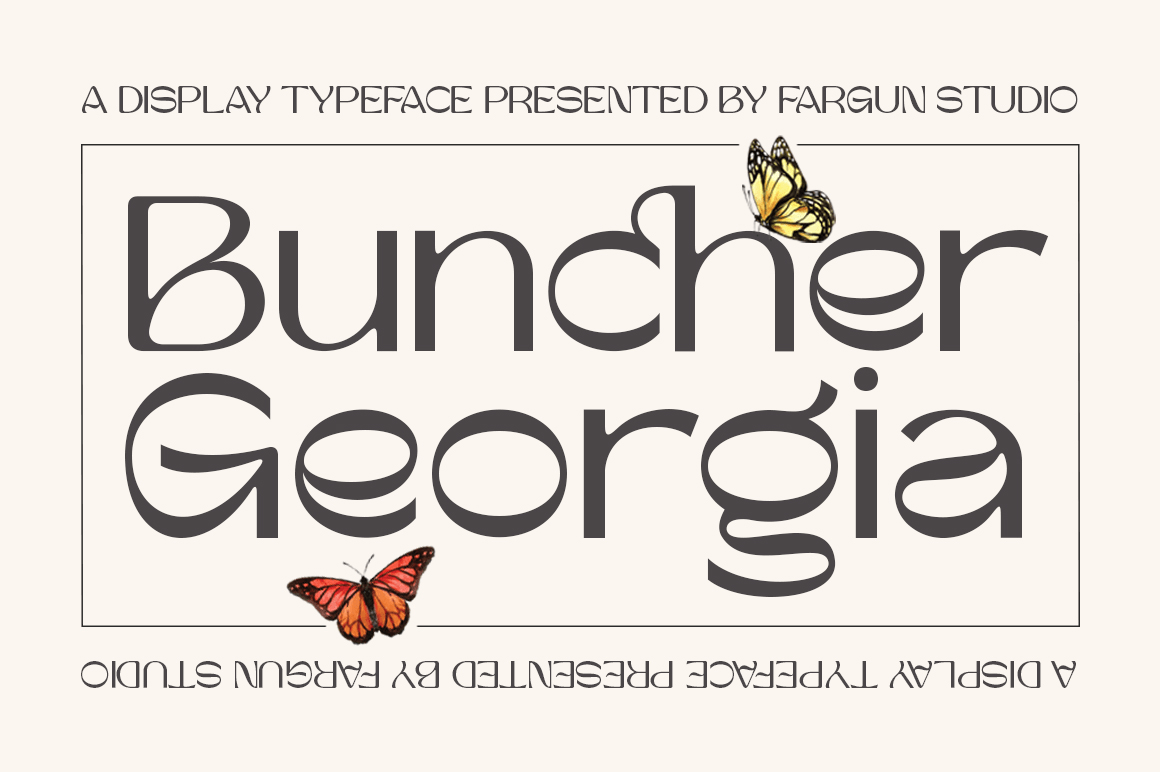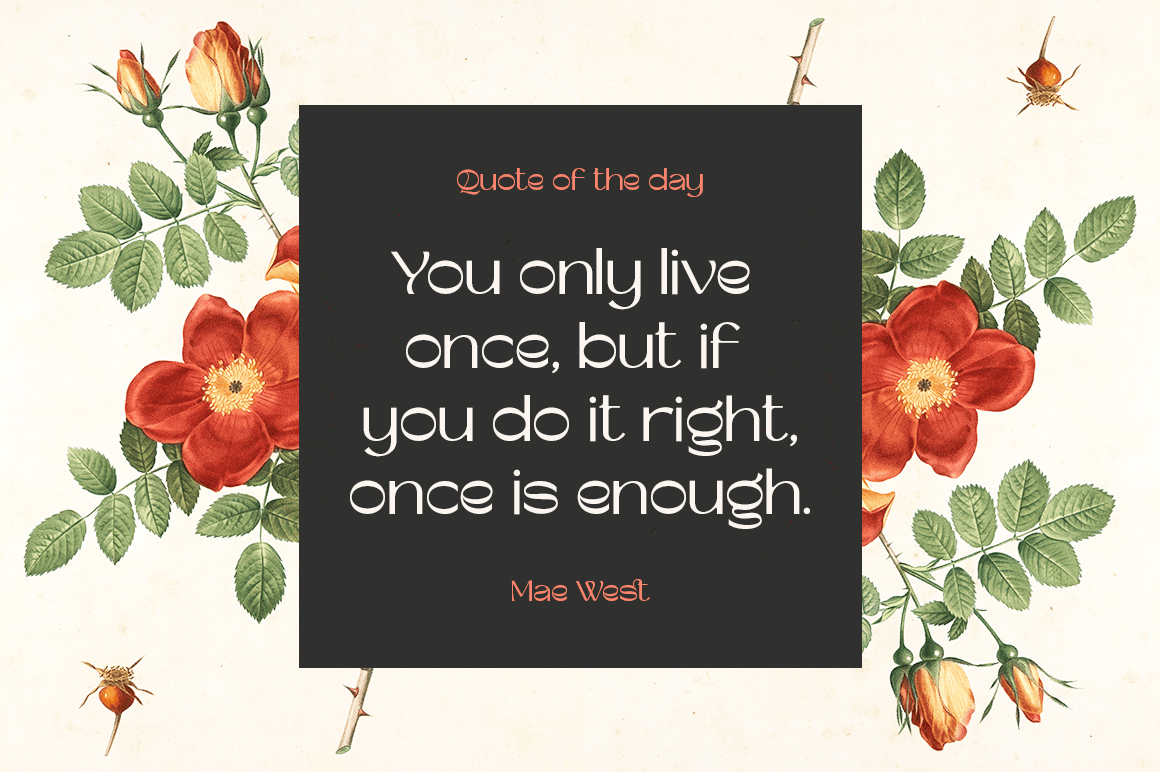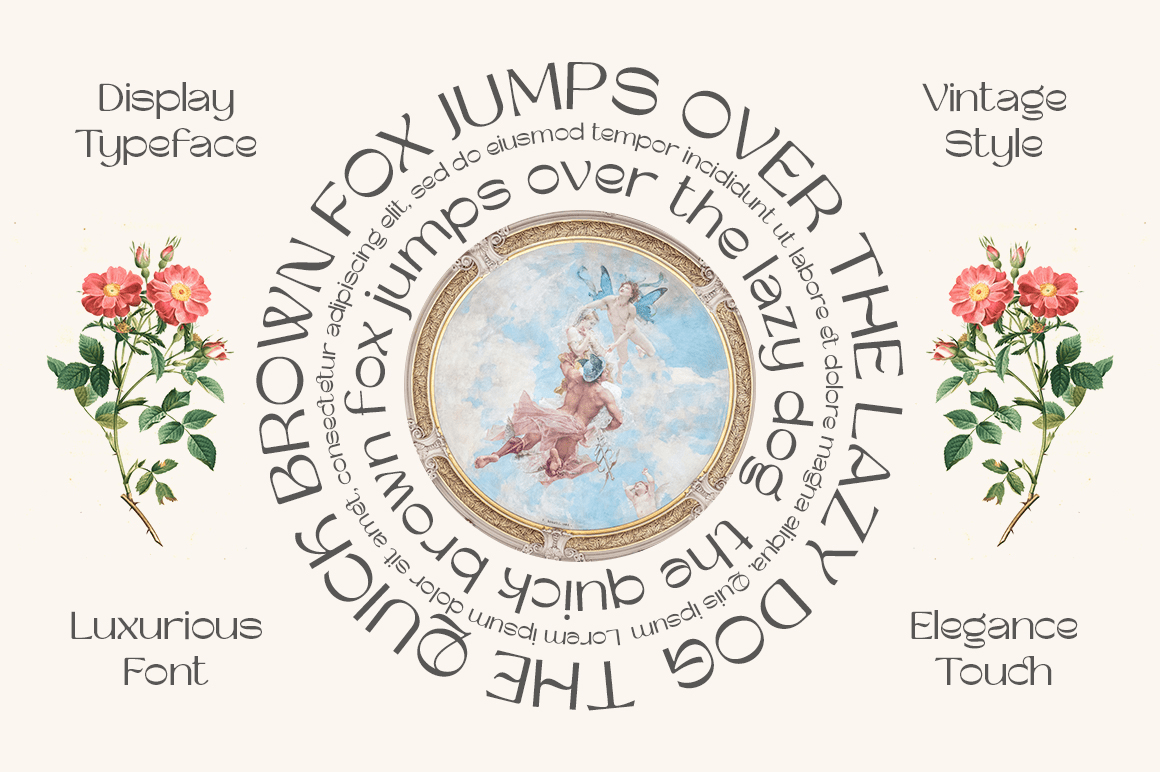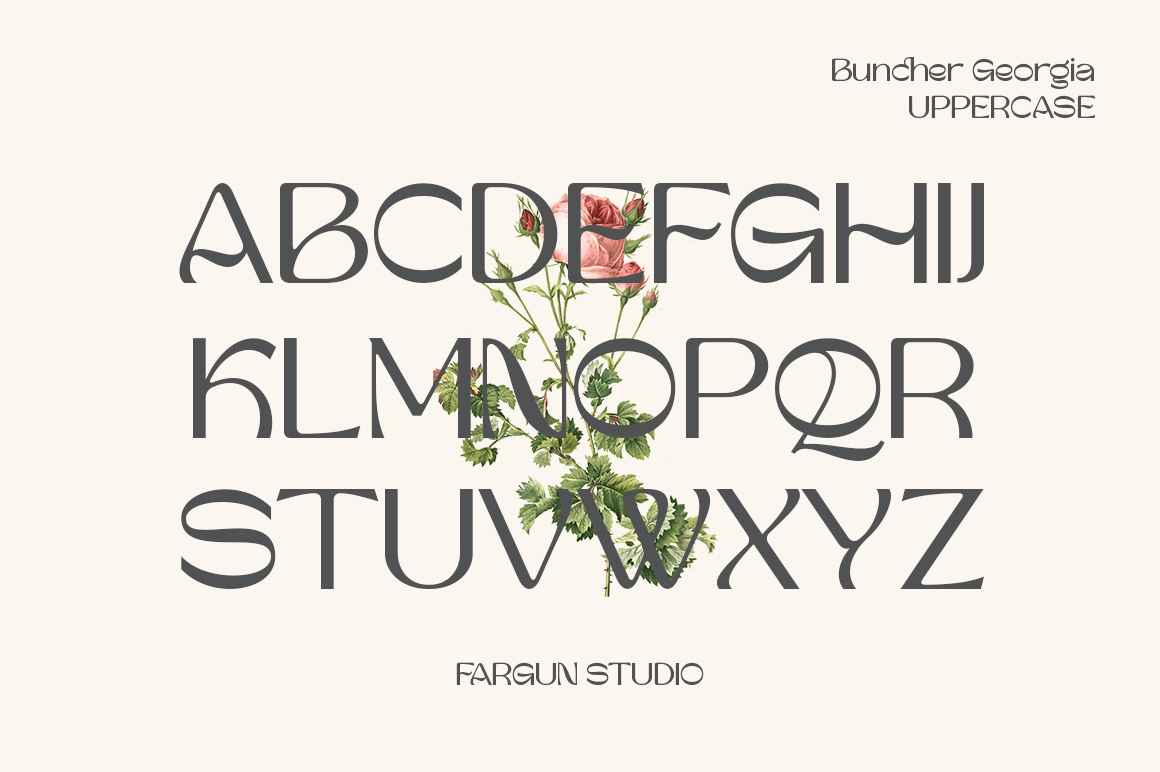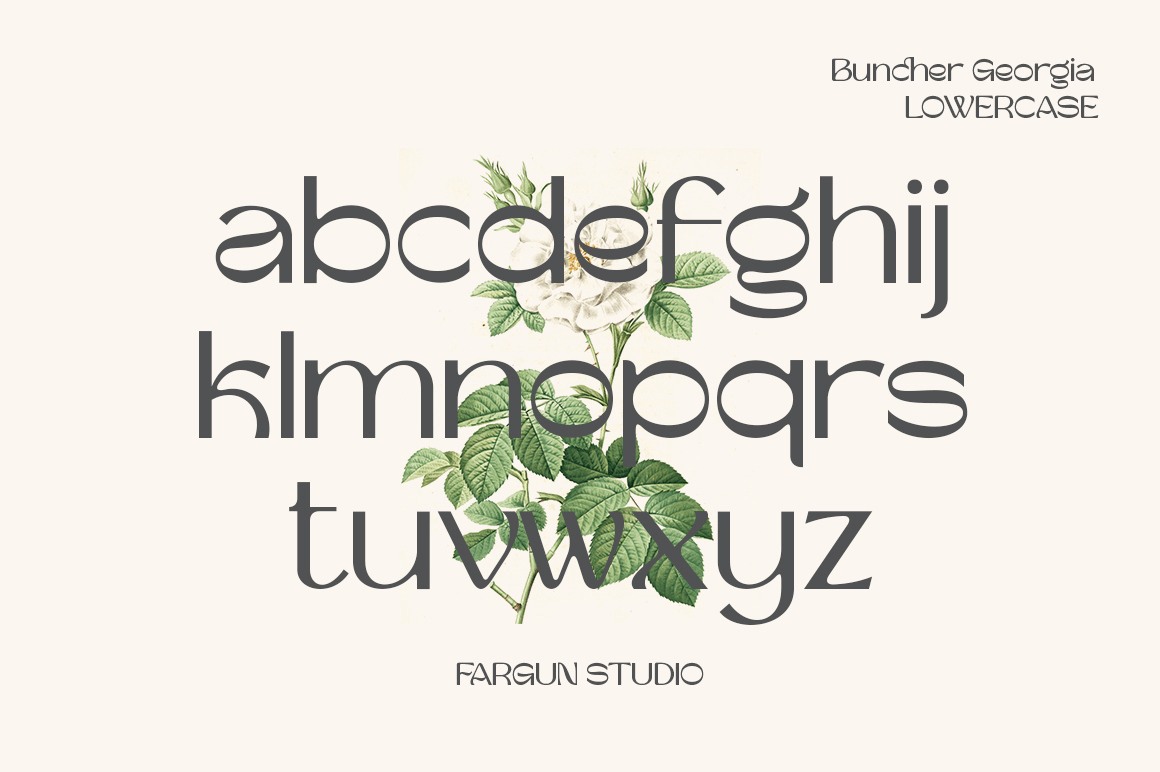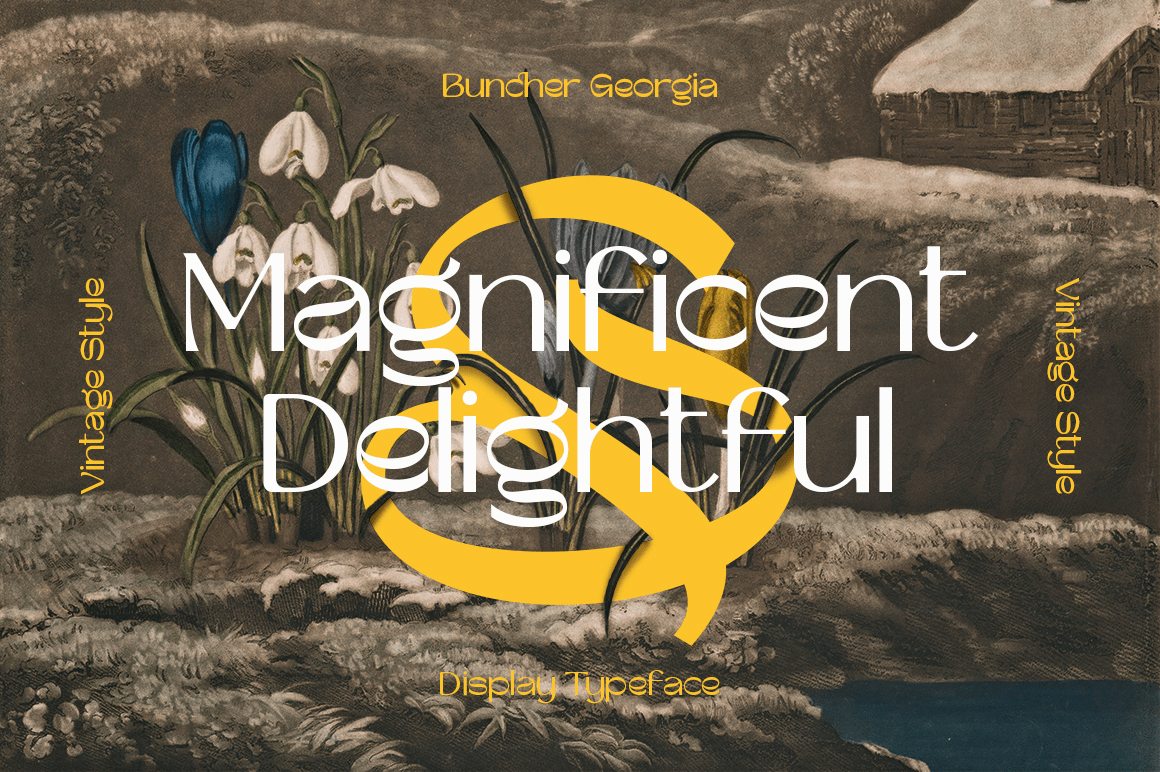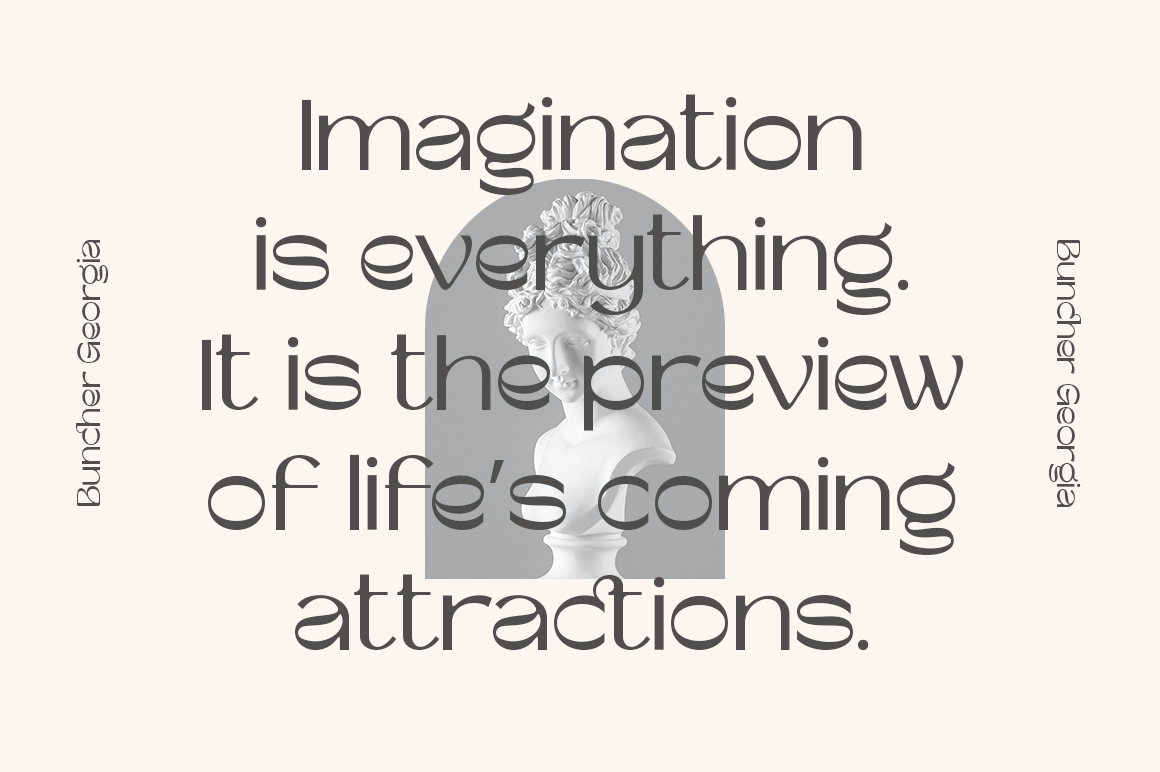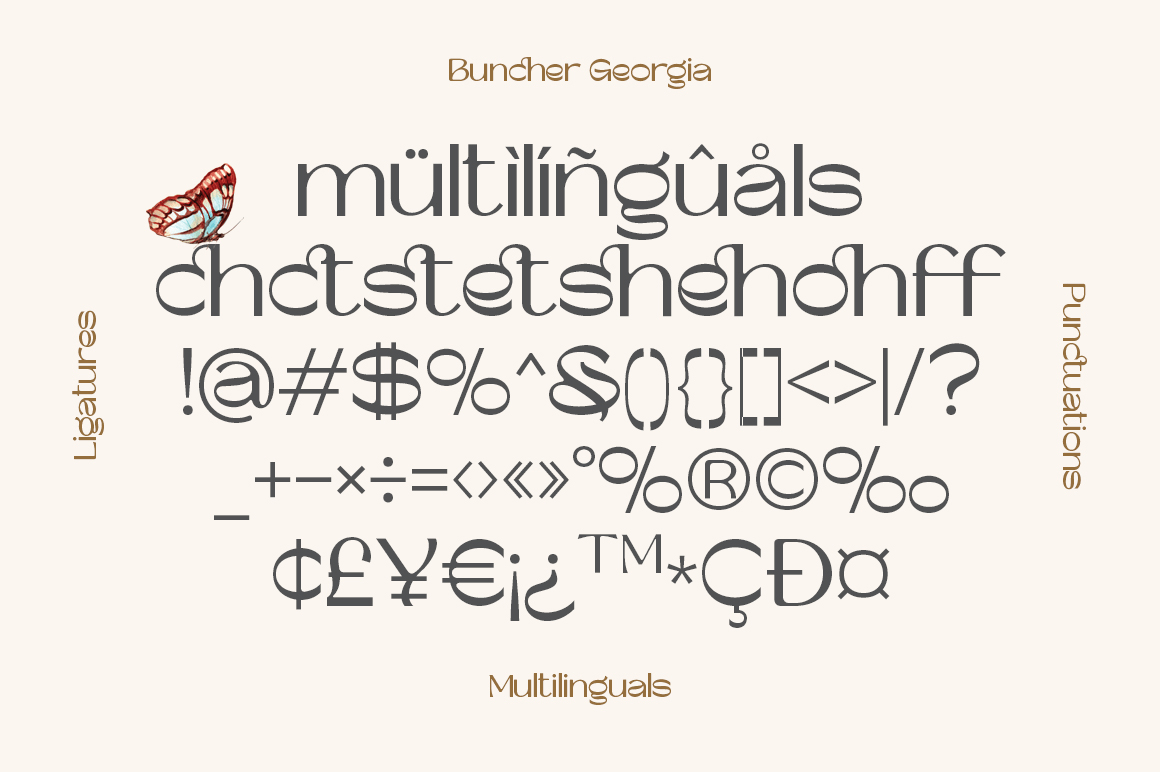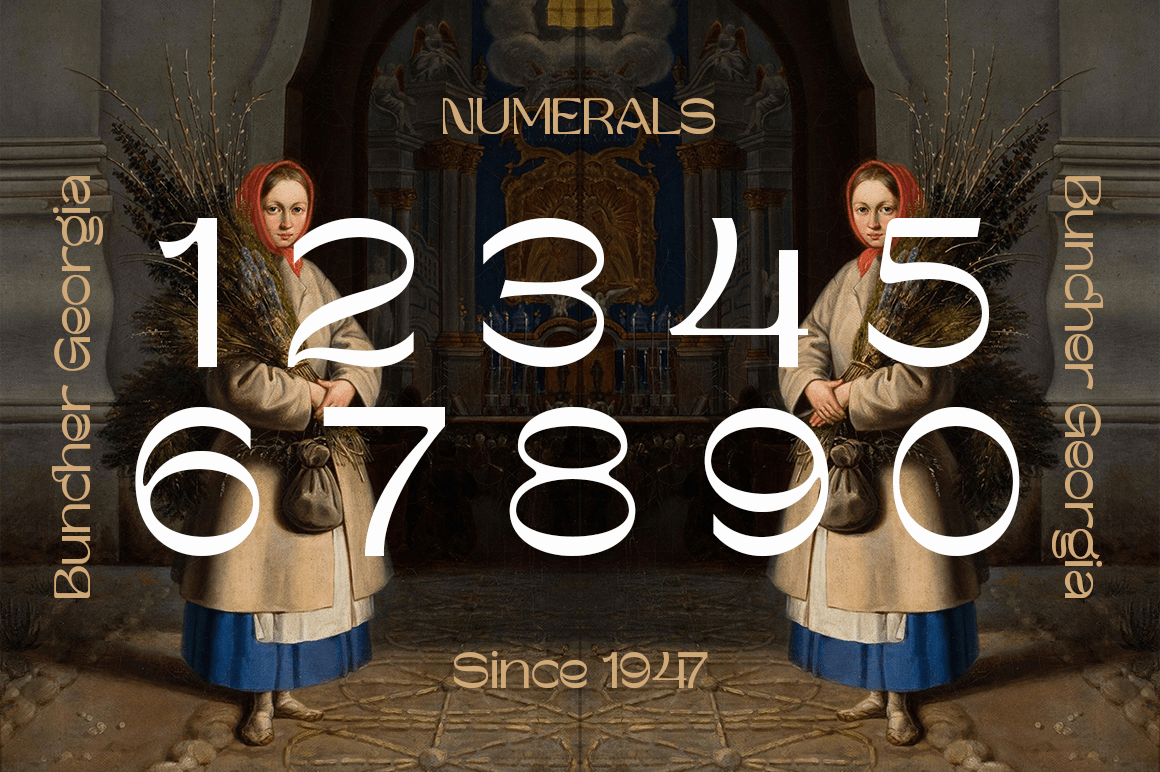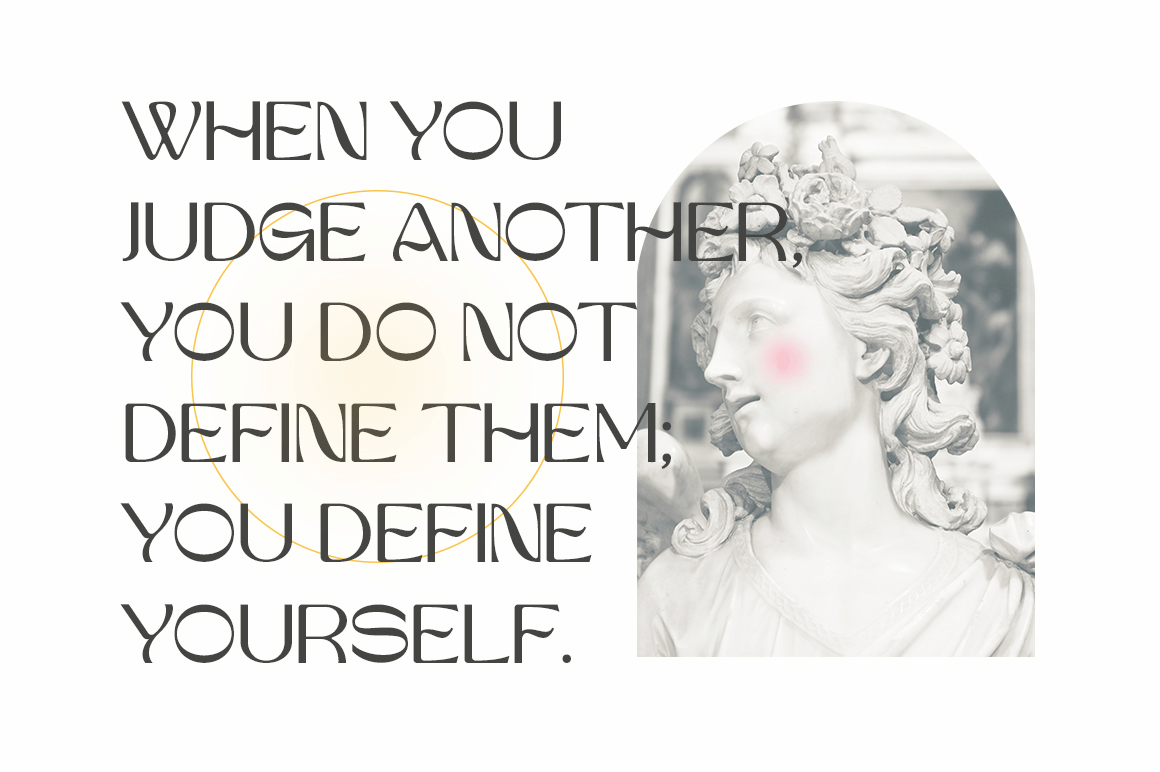
Buncher Georgia
Font Family by Fargun Studio
Buncher Georgia is a vintage display typeface inspired by the art of ancient decoration which is suitable for retro-style designs with ancient concepts.